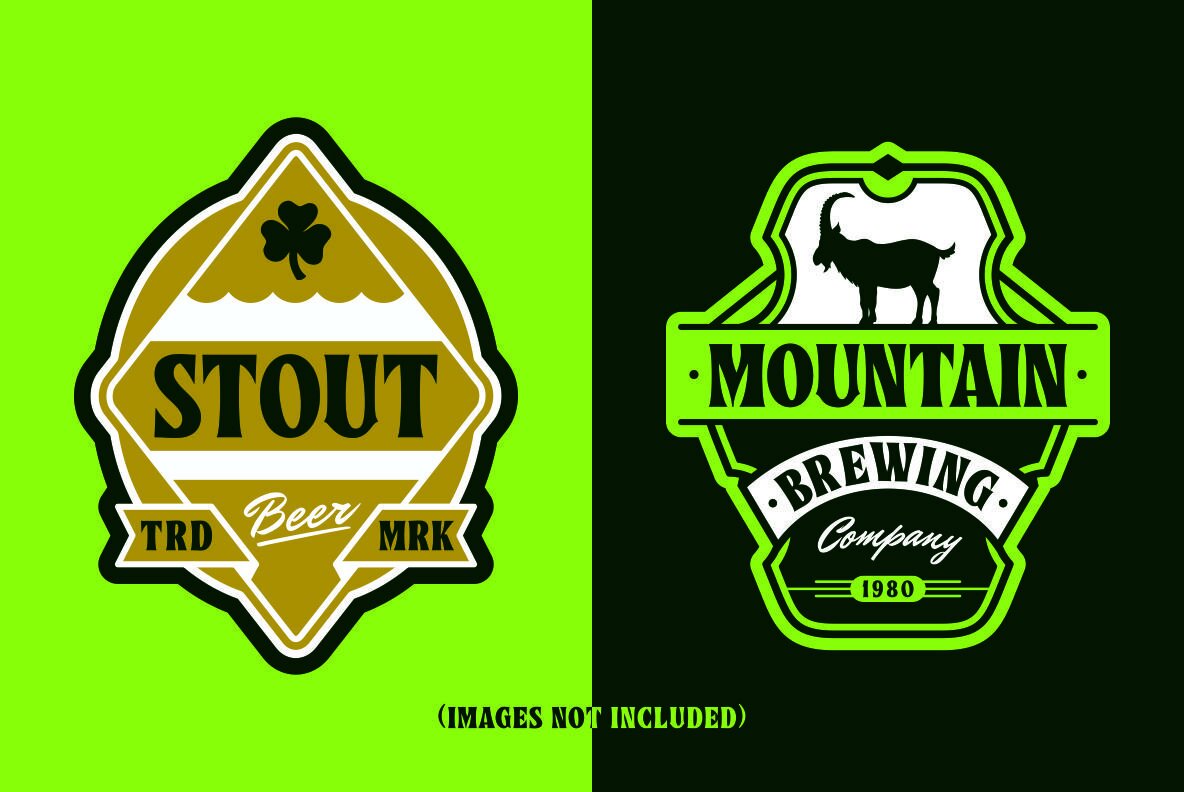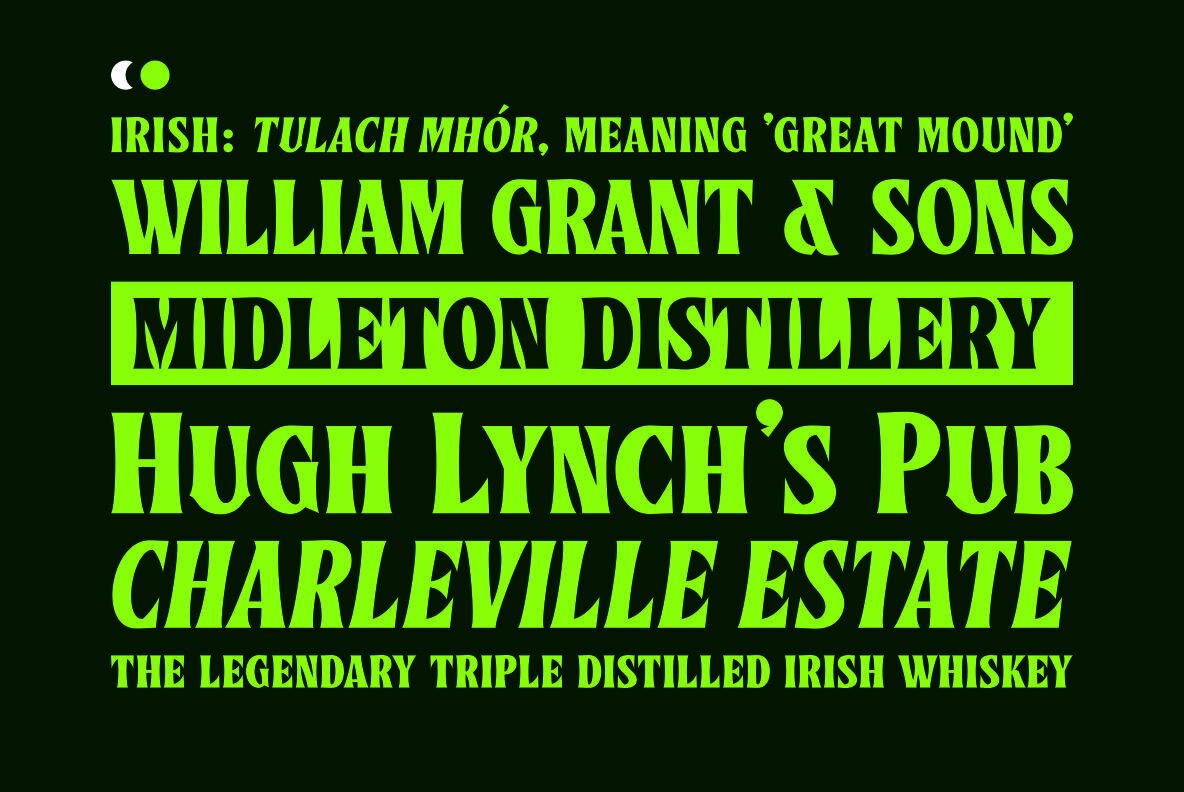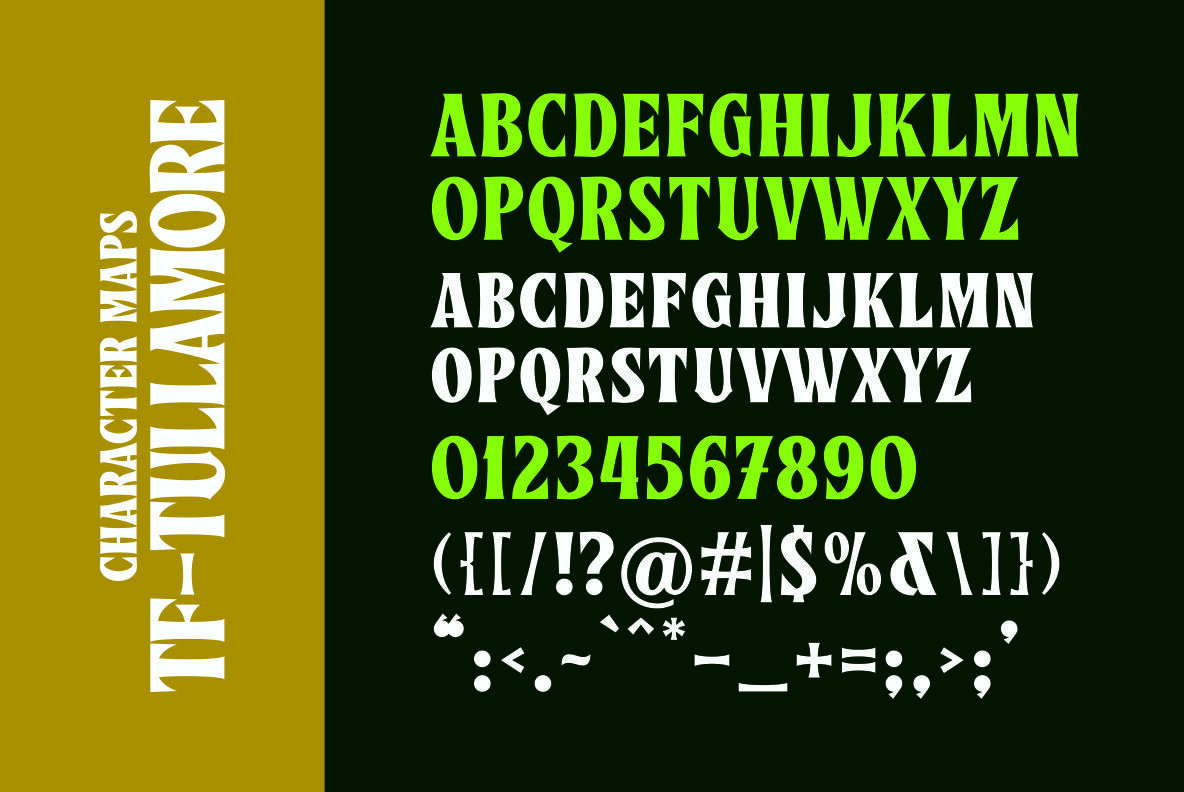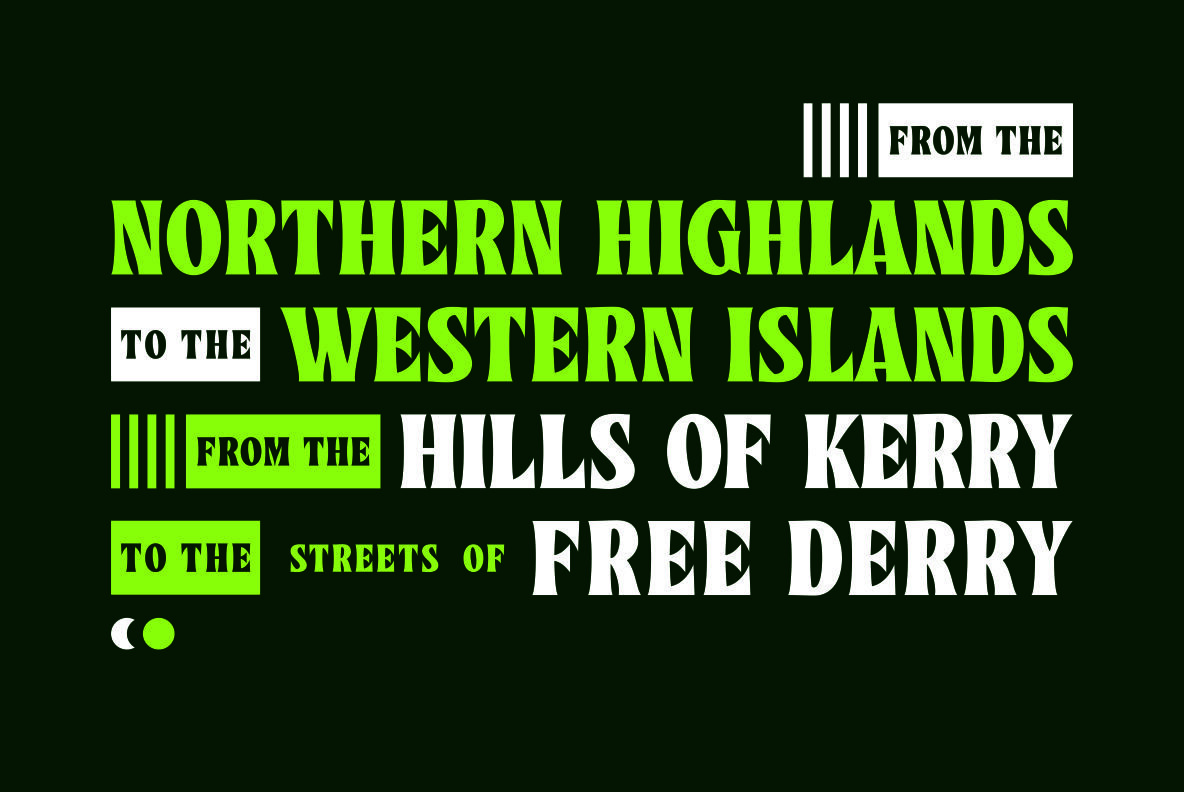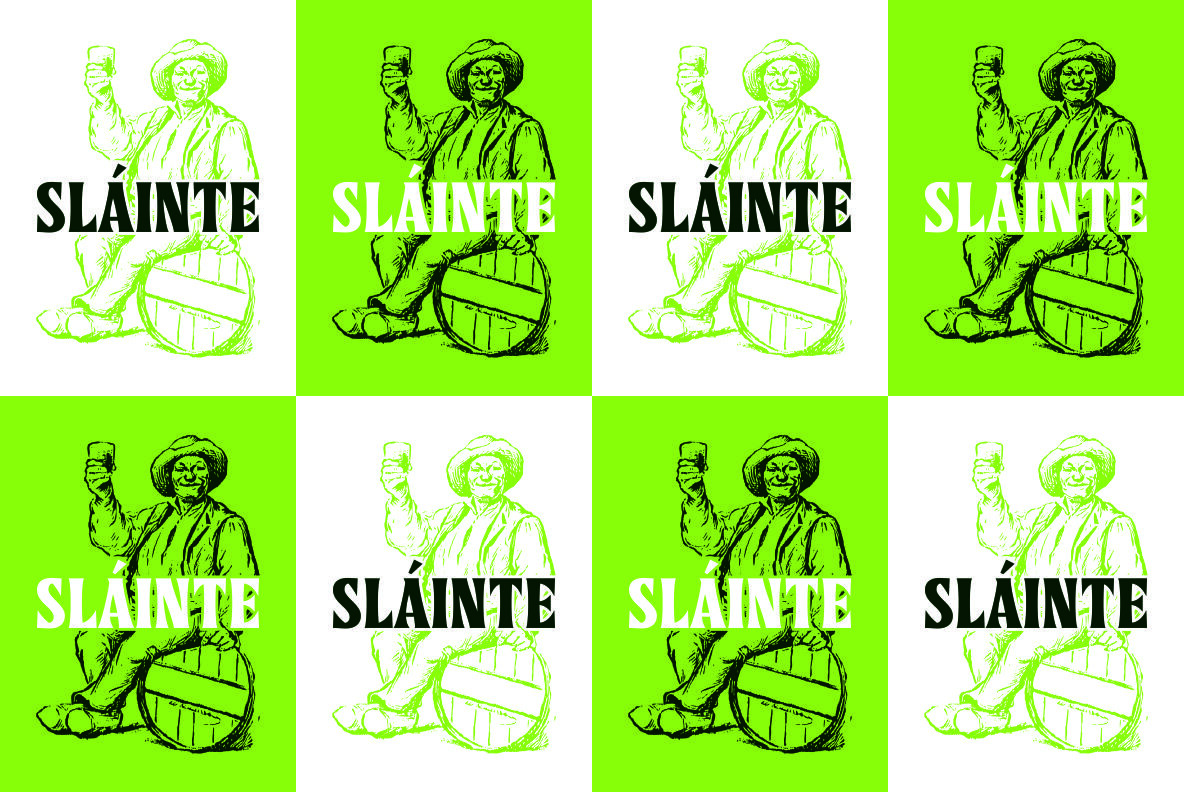
Tullamore Font
Tullamore Regular
Tullamore Italic
Tullamore elegantly bridges vintage aesthetics with modern design sensibilities. This display serif font is crafted with meticulous attention to detail, featuring clean lines, sharp edges, and alluring curves. Its refined design includes a slanted version, beautifully expanding your creative possibilities. Ideal for headlines, logos, and packaging, Tullamore captures the essence of tradition while embracing contemporary style. Tullamore is an essential addition to any design toolkit, offering versatility and sophistication to elevate your projects.Tullamore: A Display Serif With Classic Influences